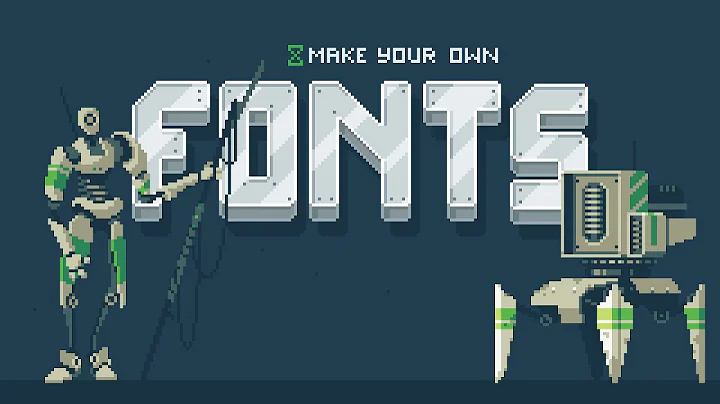
pixel font in HTML/CSS
This might do what you want to some extent:
font-smooth: never;
-webkit-font-smoothing : none;
I know I'm late, but Small Font lets you use this gladly.
Here's some working CSS with no links required:
body {font-family: "MS Pゴシック";}
<!--- Here's some HTML for the example --->
<h4>Small Font</h4>
<p>Small Font is a pixel font used by Windows when a font is too small to be displayed</p>
<h5>Recommended CSS:</h5>
<code>font-size: 75%;</code>
I'm not really sure what you're asking. But if you're looking to disable anti-aliasing, you might be able to use -webkit-font-smoothing: none;.
benoît 5 monthsI try pixel fonts from http://www.fontsquirrel.com/fonts/list/style/Pixel but It's not perfect in the browser and disable anti-aliasing is not an official CSS property (or don't find good sample).
I found this old question : Is it possible to disable anti-aliasing in CSS when using @font-face with pixel fonts?
And this JS http://devpro.it/pixelfont/ look very nice but default font is to small (make my own font is not a good deal). So I would like to know if there is something new or others tips (without swf).
Here is a test with font-face (on webkit, firefox don't ?) : http://b4d455.fr/font/
benoît over 10 yearsI add a test on my post, it's look better without in Chrome and nothing googd in Firefox… -